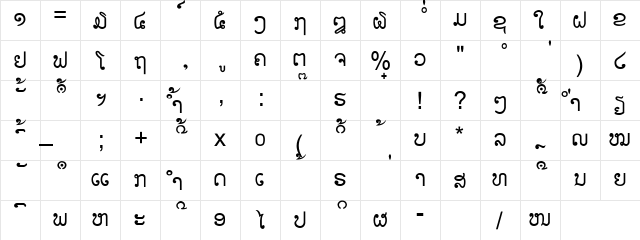
Laotian (Faluang) Regular Font Preview
Laotian (Faluang) Regular
Design Context for Laotian (Faluang) Typeface
Laotian (Faluang) takes a measured approach to typography — its balanced proportions and neutral character make it a reliable workhorse for both digital and print work.